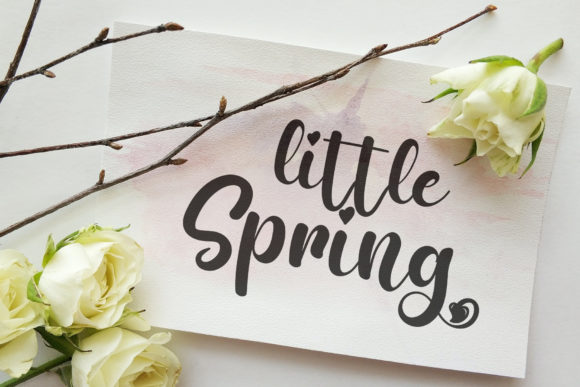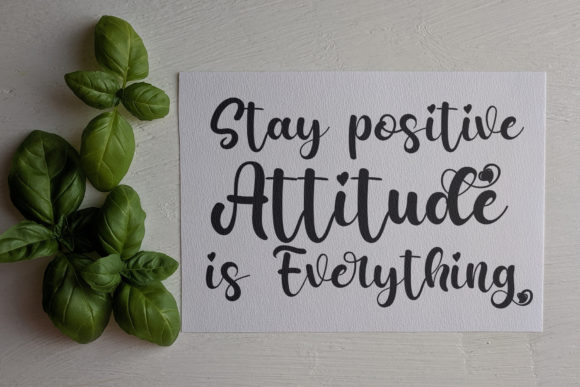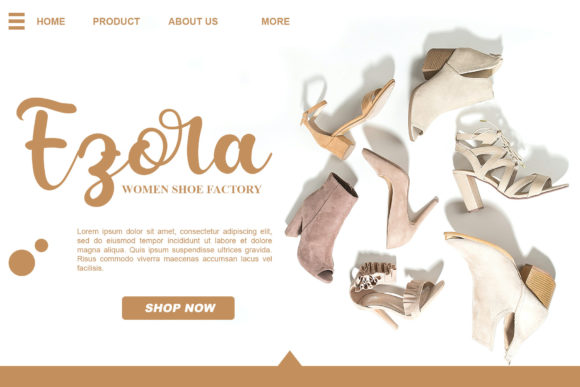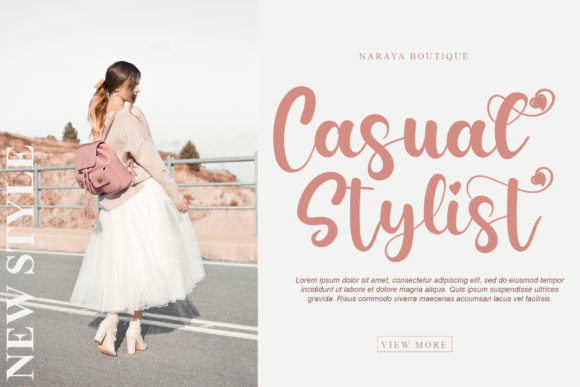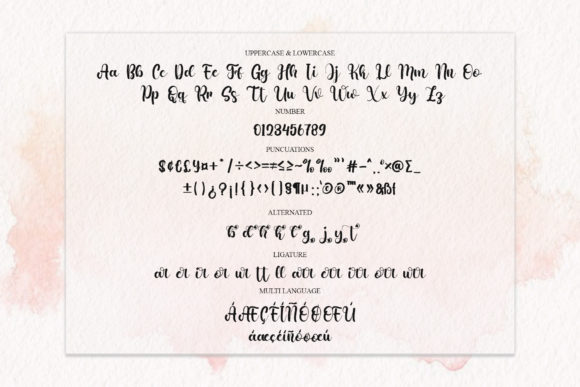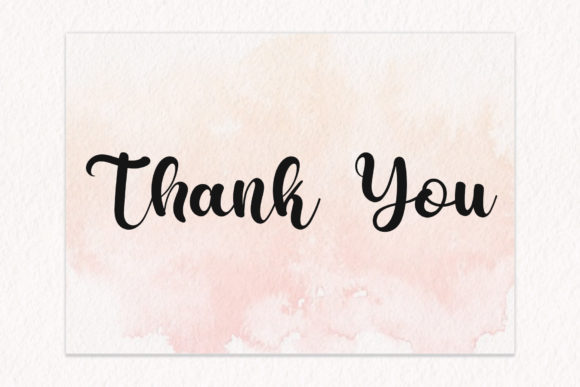
Easter Font: Elevate Your Designs with a Romantic and Lovely Script Font
Easter is a dazzling and detailed script font that is sure to add a touch of elegance and romance to your designs. With its beautiful and intricate lettering, this font is perfect for crafters, designers, and anyone looking to create stunning visual content. In this article, we’ll explore the features and benefits of Easter Font, and show you how to make the most of this gorgeous font in your designs.
What Makes Easter Font So Special?
Easter Font is a romantic and lovely looking font that is designed to make your designs stand out. Its intricate and detailed script lettering is perfect for creating beautiful wedding invitations, love letters, and other design ideas. The font is PUA encoded, which means you can access all of the glyphs and swashes with ease, giving you complete creative control over your designs.
Key Features of Easter Font
• PUA Encoded: Easter Font is PUA encoded, making it easy to access all of the glyphs and swashes.
• Intricate Script Lettering: The font features beautiful and intricate script lettering that is perfect for creating romantic and elegant designs.
• Romantic and Lovely: Easter Font has a romantic and lovely feel that’s perfect for wedding invitations, love letters, and other design ideas.
Uses for Easter Font
Easter Font is a versatile font that can be used in a variety of design projects, including:
• Wedding Invitations: Create beautiful and elegant wedding invitations that will set the tone for your special day.
• Love Letters: Add a touch of romance to your love letters with Easter Font.
• Design Ideas: Use Easter Font to create stunning visual content for your blog, social media, or marketing materials.
• Crafting: Easter Font is perfect for crafters who want to create beautiful and unique projects, such as handmade cards, scrapbooking, and more.
Tips for Using Easter Font
Here are some tips for using Easter Font in your designs:
• Experiment with Different Sizes: Easter Font looks great in a variety of sizes, so experiment with different sizes to find the one that works best for your design.
• Combine with Other Fonts: Combine Easter Font with other fonts to create a unique and interesting look.
• Use Swashes and Glyphs: Take advantage of the PUA encoding and use the swashes and glyphs to add extra detail and interest to your designs.
• Keep it Simple: Don’t be afraid to keep it simple and use Easter Font on its own to create a clean and elegant design.
Easter Font is a beautiful and romantic script font that is perfect for designers, crafters, and anyone looking to create stunning visual content. With its intricate and detailed lettering, PUA encoding, and ease of use, this font is sure to become a favorite in your design arsenal. Whether you’re creating wedding invitations, love letters, or design ideas, Easter Font is the perfect choice. So why wait? Download Easter Font today and start creating beautiful and elegant designs that will leave a lasting impression.